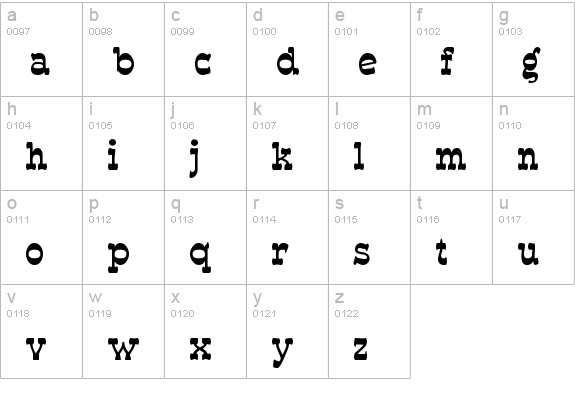
RoundWhy Bold Font Details
RoundWhy Bold is a strong, high-contrast variant in the RoundWhy typeface family \xE2\x80\x94 well suited to headlines, attention-grabbing titles, and strong calls-to-action.
RoundWhy Bold font is a modern and stylish typeface that exudes confidence and sophistication. With its rounded edges and bold weight, this font is perfect for making a statement in your designs. Whether you're creating a logo, poster, or website, RoundWhy Bold will help you stand out from the crowd. The best part? RoundWhy Bold font is available for free download at FontsMarket.com. This means you can start using this eye-catching font in your projects right away, without having to worry about any additional costs. Don't miss out on this fantastic opportunity to elevate your designs with RoundWhy Bold font today.